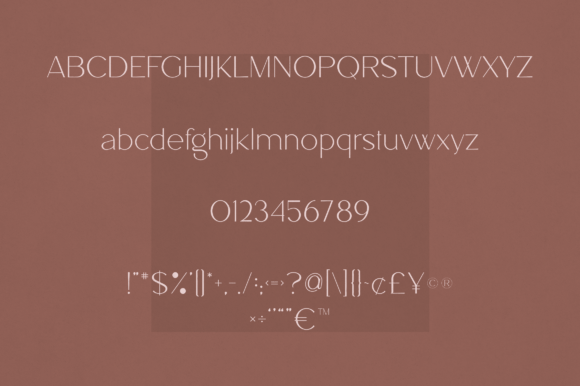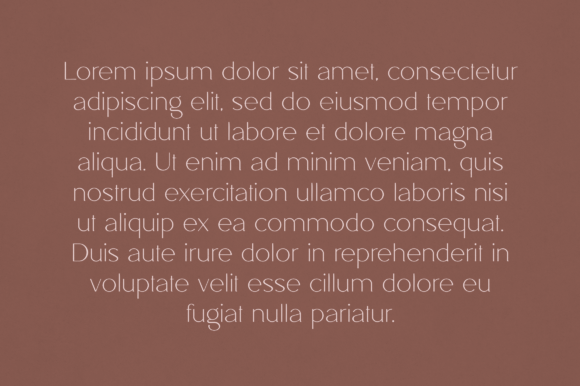
The Designer’s Delight: Uncovering the Elegance of Bonnie Font
I’ll never forget the time I was working on a logo design project for a high-end fashion brand. My client was specific about wanting a font that exuded elegance, sophistication, and a touch of playfulness. I scoured the internet, tried out countless fonts, but nothing seemed to fit the bill. That was until I stumbled upon Bonnie Font. It was love at first sight! 💕
Bonnie is an elegant and versatile sans serif font that has become a staple in my design toolkit. Its unique blend of modernity and classic charm makes it perfect for a wide range of design projects, from logos and branding to headlines and plain text.
What I Love About Bonnie Font
- ✨ Elegant and sophisticated design that’s perfect for high-end branding
- ✅ Versatile and adaptable to various design projects and styles
- 🔥 Unique character that sets it apart from other sans serif fonts
- 💻 Excellent legibility, even at small font sizes
While Bonnie Font is an excellent choice for many design projects, it’s not without its quirks. For instance, ⚠️ some users may find the font’s x-height a tad too high, which can affect its overall flow. Additionally, 🤔 the font’s stylistic alternates can be a bit tricky to navigate for beginners.
The Inspiration Behind Bonnie Font
Bonnie Font was designed with the goal of creating a unique and versatile sans serif font that would cater to the needs of modern designers. Its creator drew inspiration from classic typography and infused it with a touch of modernity, resulting in a font that’s both elegant and playful.
| Font Name | Bonnie Font |
| Author | vladfedotovv |
Q: What makes Bonnie Font unique?
A: Bonnie Font’s unique blend of elegance, sophistication, and playfulness makes it stand out from other sans serif fonts.
Q: Is Bonnie Font suitable for body text?
A: While Bonnie Font is excellent for headlines and titles, it may not be the best choice for body text due to its elegant and slender design.